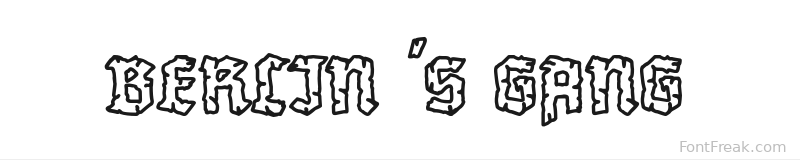
Berlin's Gang
About Berlin's Gang
Berlin's Gang, designed by woodcutter Manero, is a striking decorative font that captures the essence of urban artistry and street culture. This font features an intricate design characterized by its bold stroke weight and unique decorative elements that give it a rugged yet stylish appearance. The letters possess an angular, slightly uneven outline that evokes a sense of movement and spontaneity, making it an eye-catching choice for various creative projects. The spacing between the characters is thoughtfully designed to maintain legibility while enhancing its artistic flair.
Ideal for a range of applications, the Berlin's Gang font excels in projects that require a bold statement. It is particularly well-suited for music event posters, urban-themed merchandise, and streetwear branding. Additionally, its distinctive style can elevate restaurant menus and promotional materials for trendy cafes, providing a unique visual appeal that captures the attention of potential customers. Graphic designers will find this font a valuable asset for creating impactful visuals, while small business owners looking to establish a memorable brand identity can leverage its unique characteristics.
The target audience for Berlin's Gang includes graphic designers, content creators, and small business owners who appreciate the fusion of creativity and functionality in typography. This font stands out not only for its artistic design but also for its versatility in various applications. Its free availability as a freeware license allows users to incorporate it into their projects without financial constraints, making it an accessible option for those looking to infuse their work with a distinctive flair. For anyone seeking to elevate their design projects, the Berlin's Gang font free download offers a unique opportunity to explore the intersection of urban style and typographic creativity.